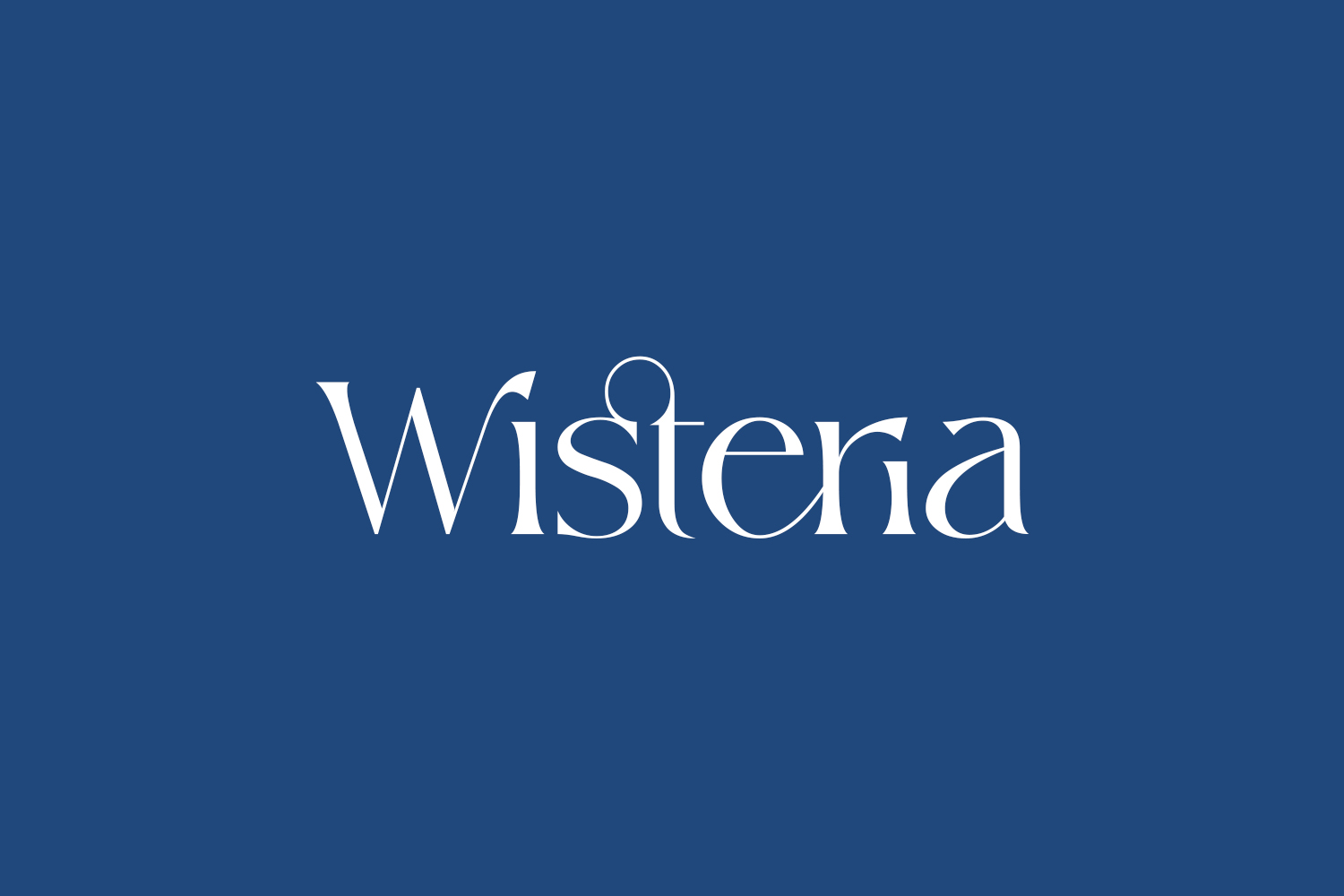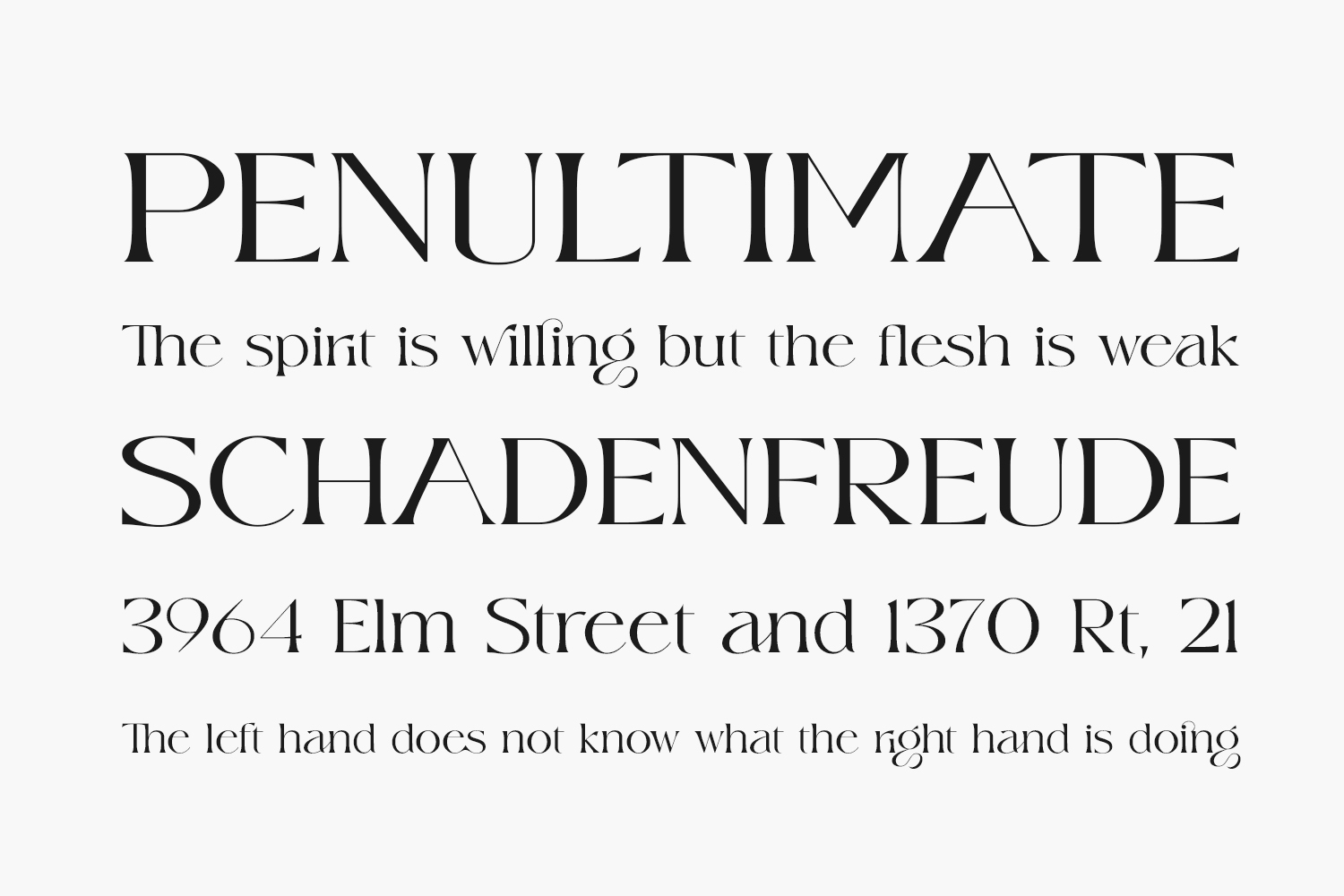
Wisteria Free Font is both modern and nostalgic and works great for logos, magazines, and social media. Already matched up and ready to be used together for your next design, this font reads as elegant, stylish, classy, chic, and modern. Wisteria Free Font was designed by ToniStudio and is free for personal use only. Please purchase the full version for commercial use.